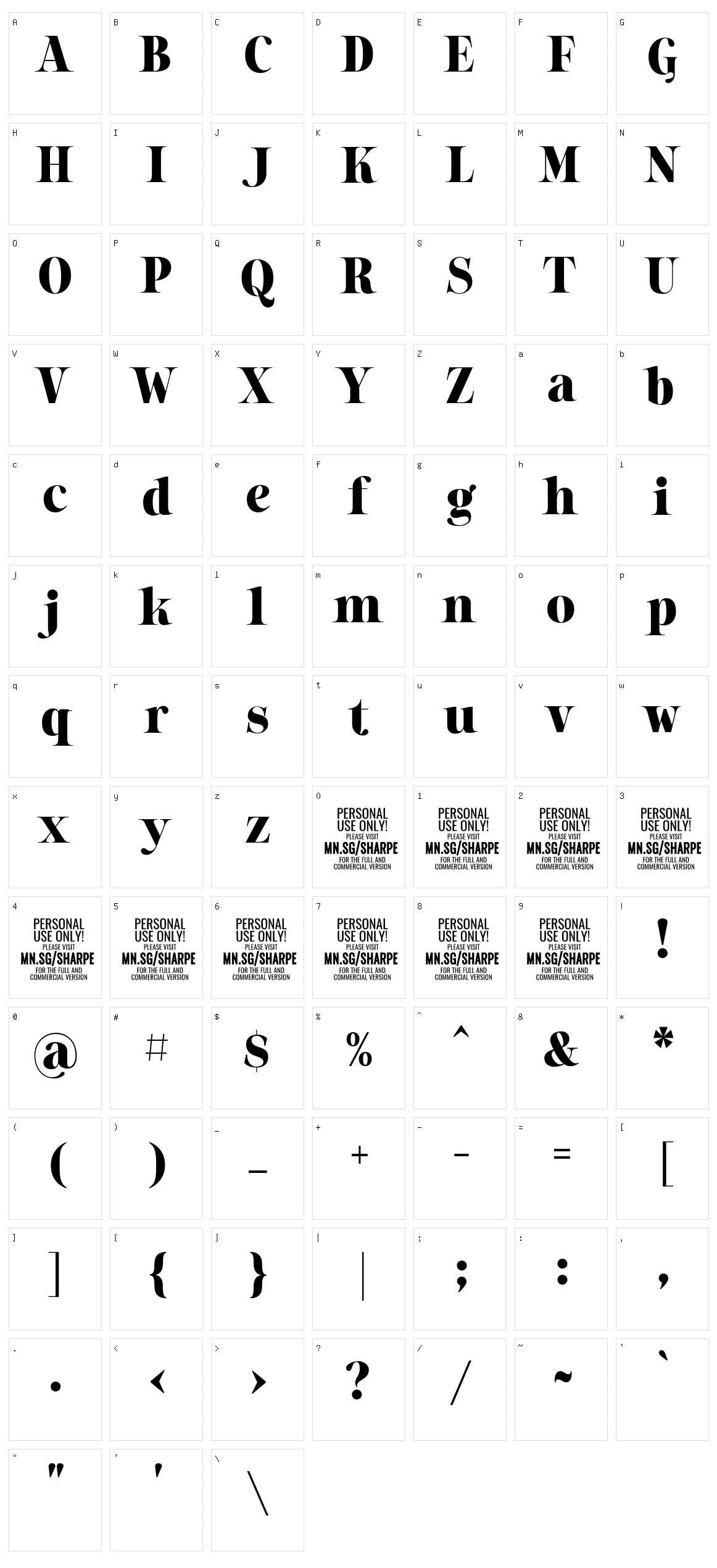
Sharpe is a stylish serif typeface family.
The type has been drawn by Måns Grebäck during 2018 and 2019.
It is clear, sharp and has brave, lively letterforms but with a conservative backbone.
The five font weights balances beautifully in contrast to each other, and each
weight has an italic equivalent, totaling in ten styles from Thin to Black.
Each style contains ligatures and support for a wide range of languages.